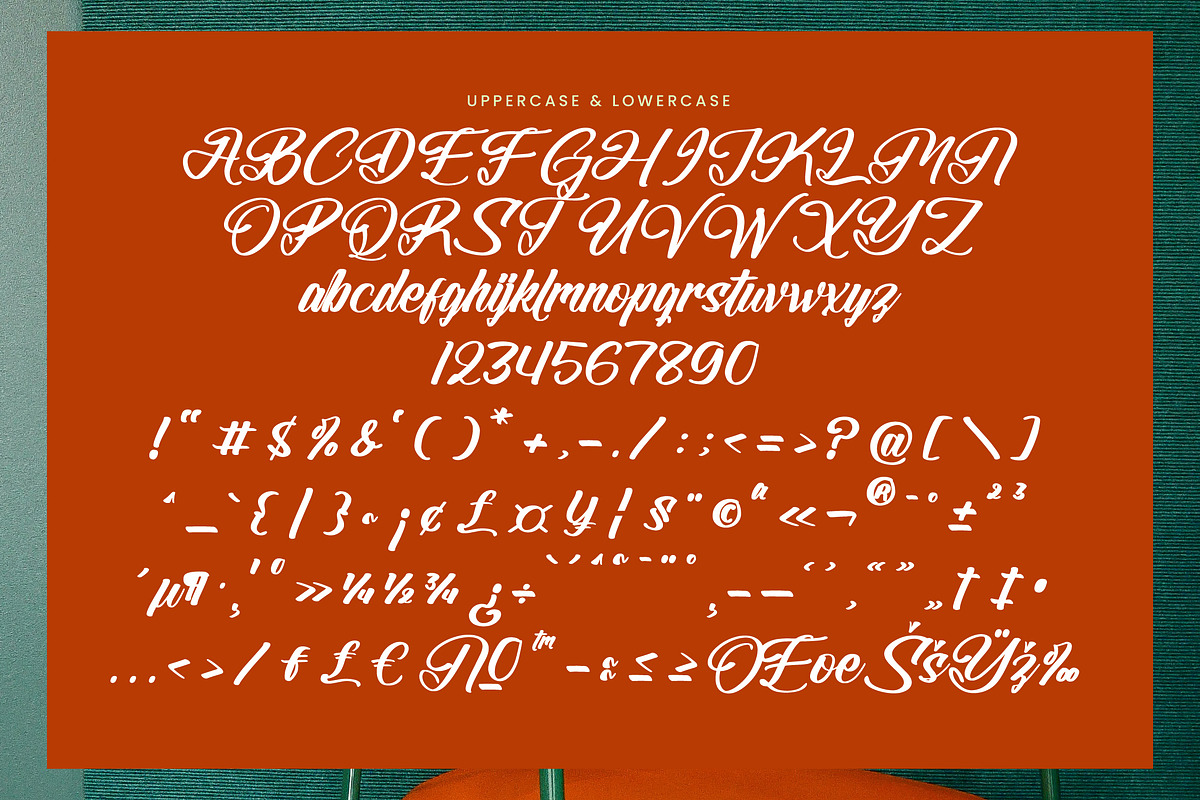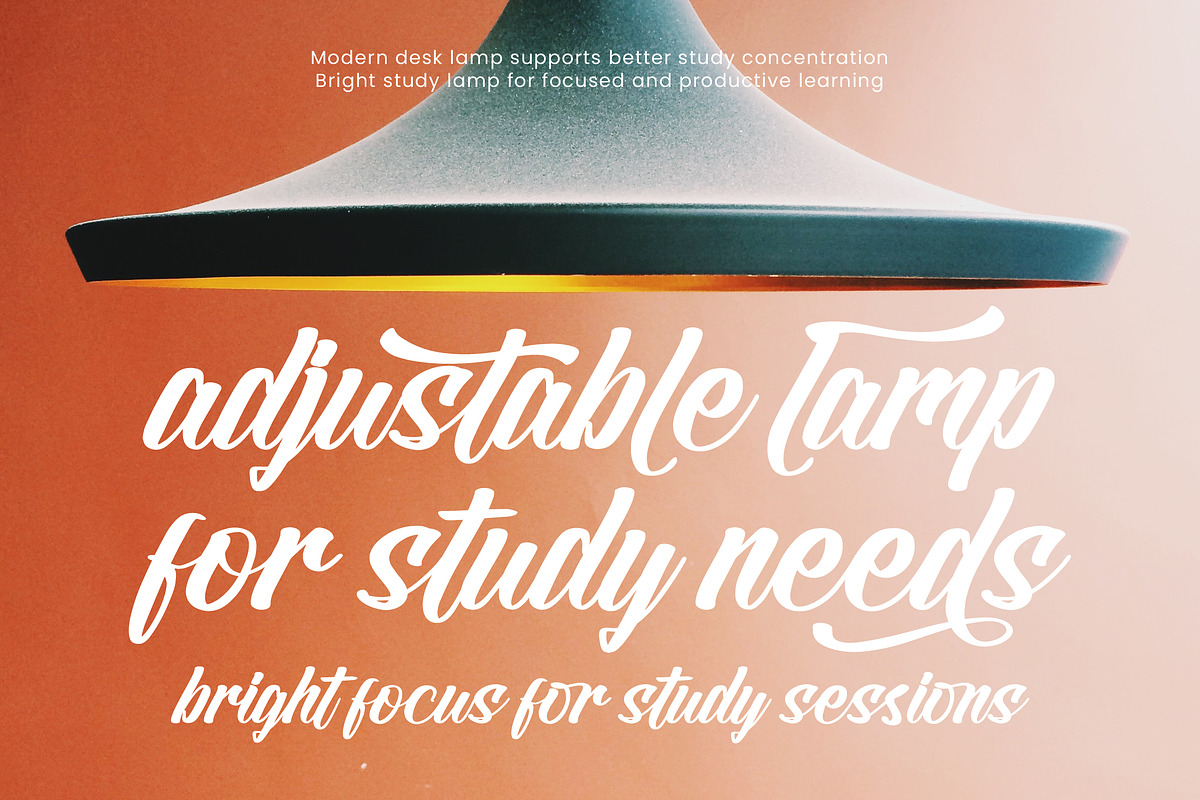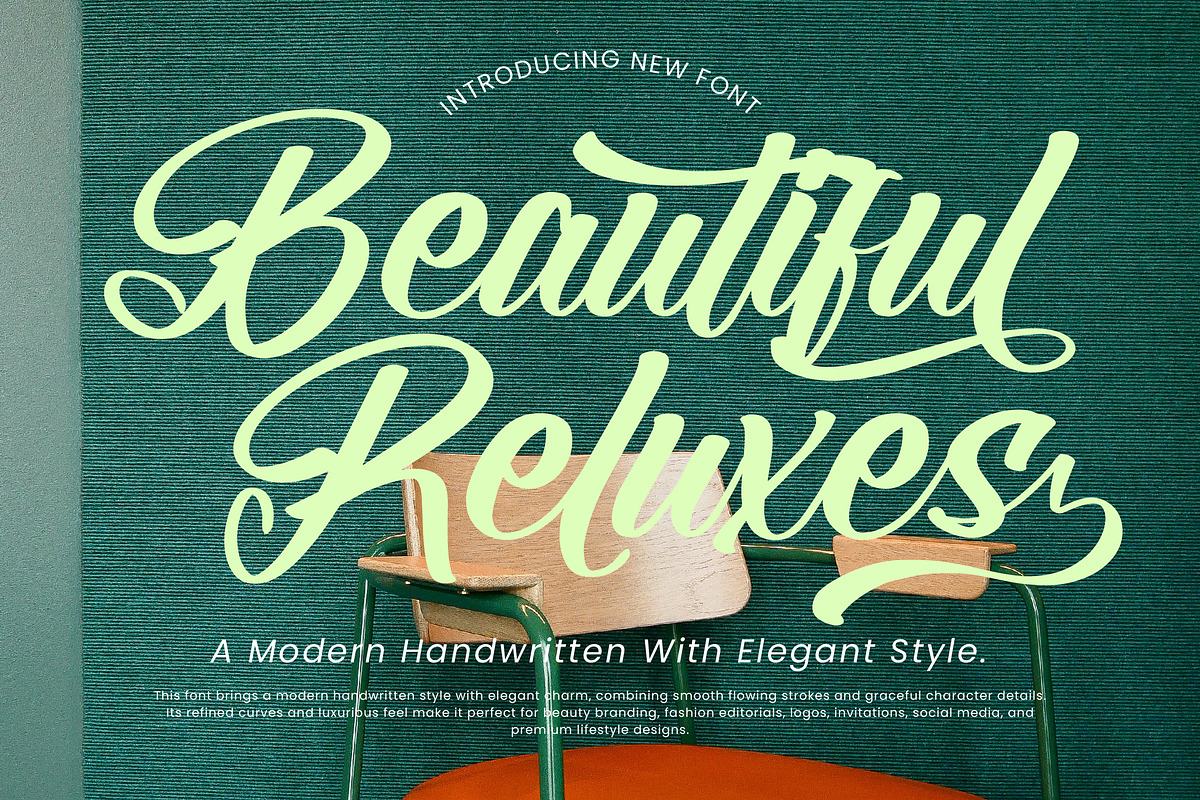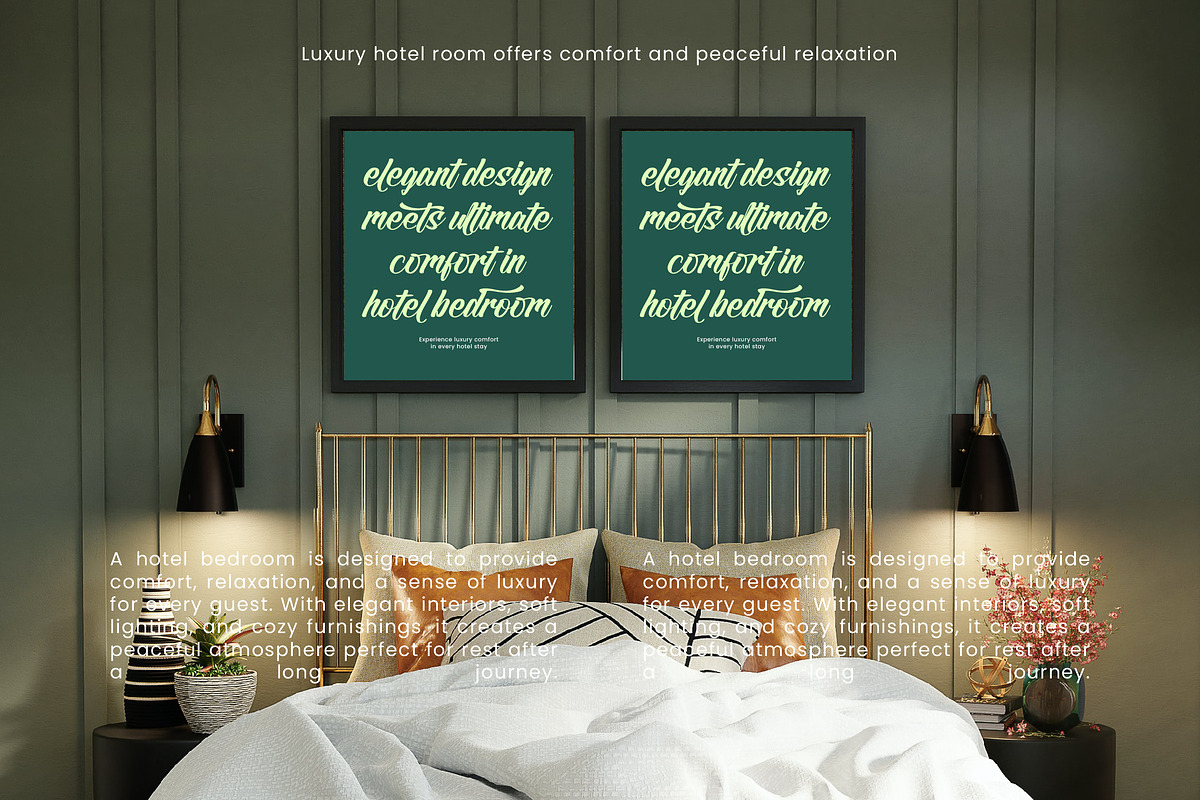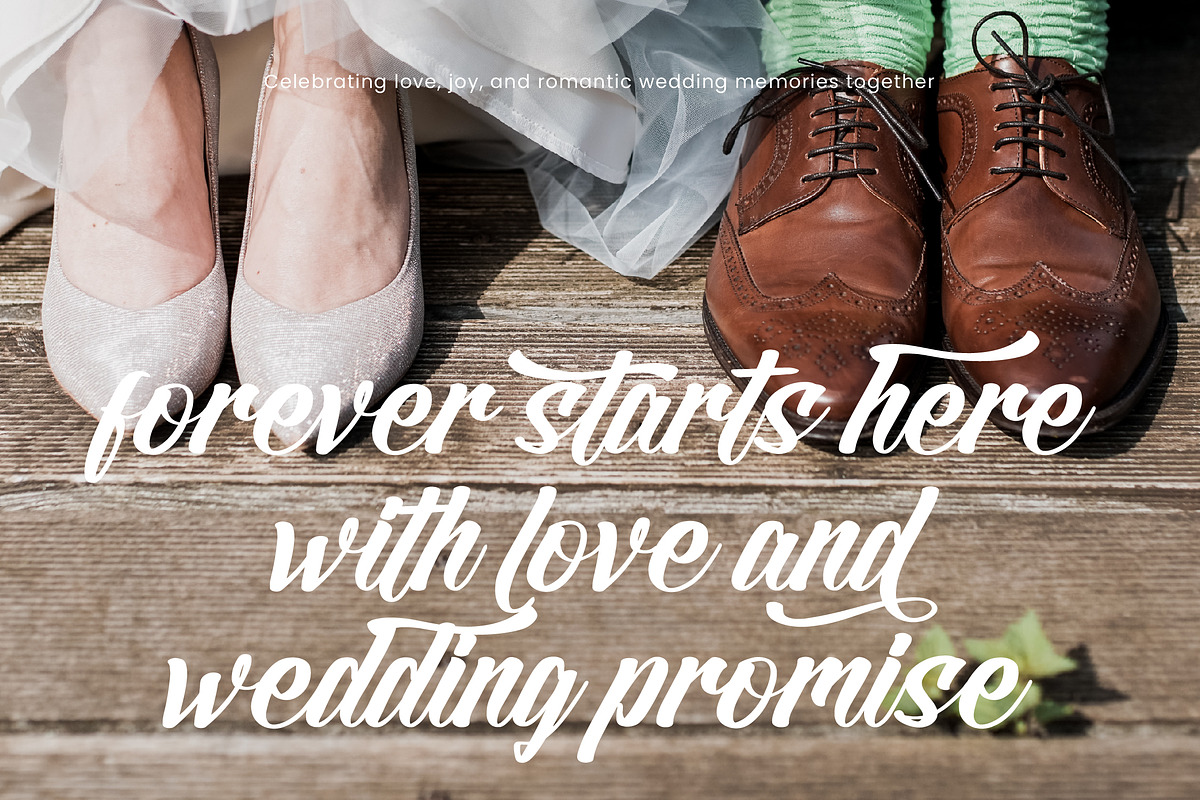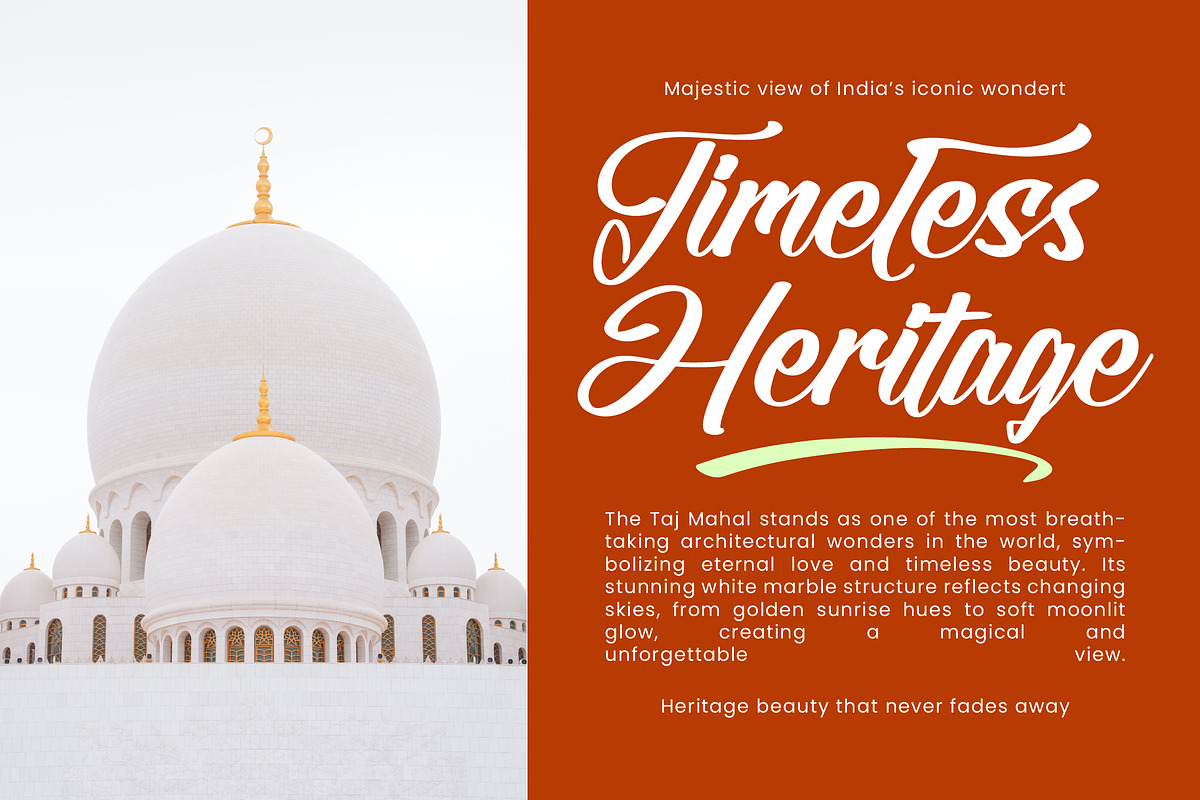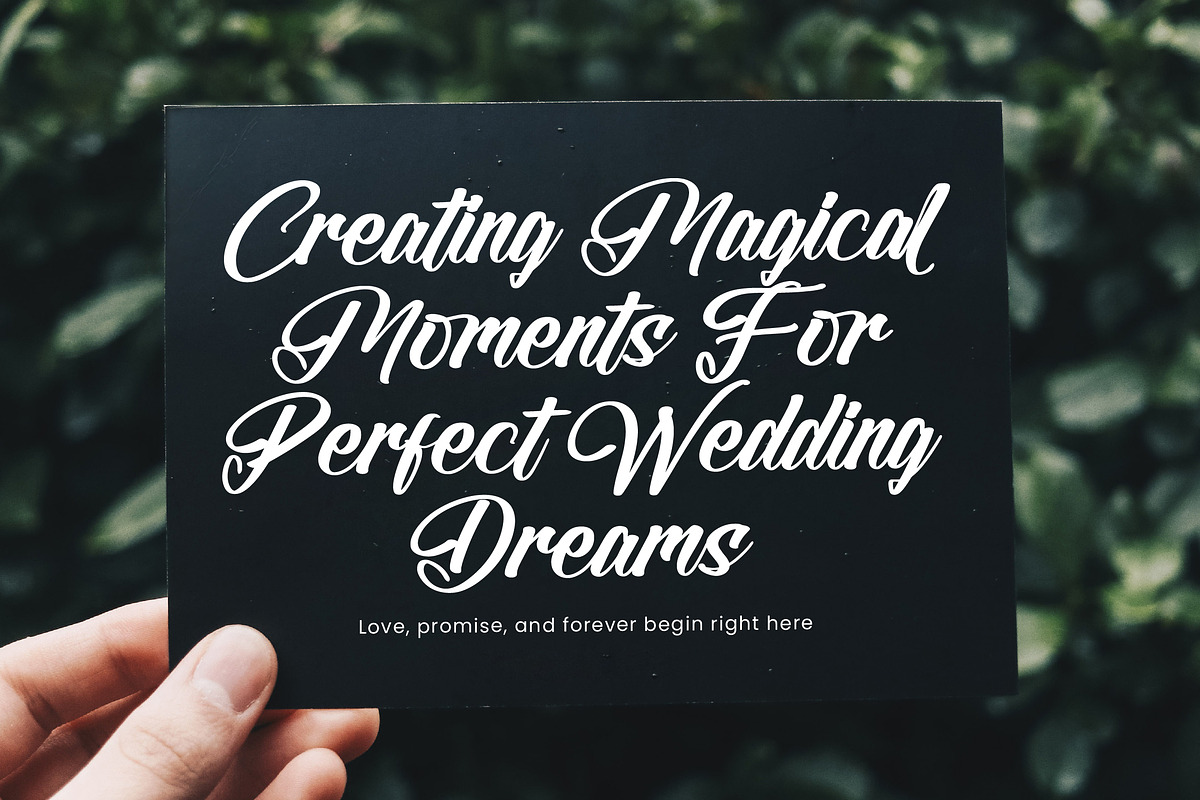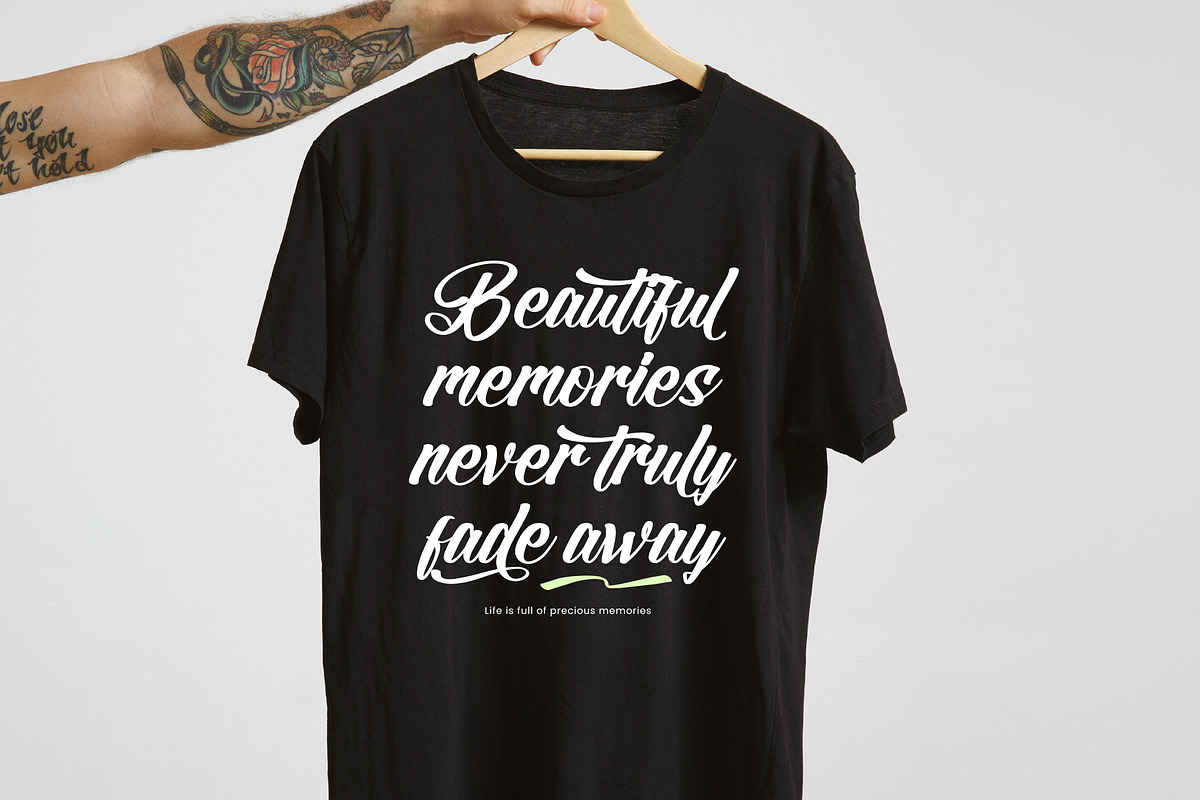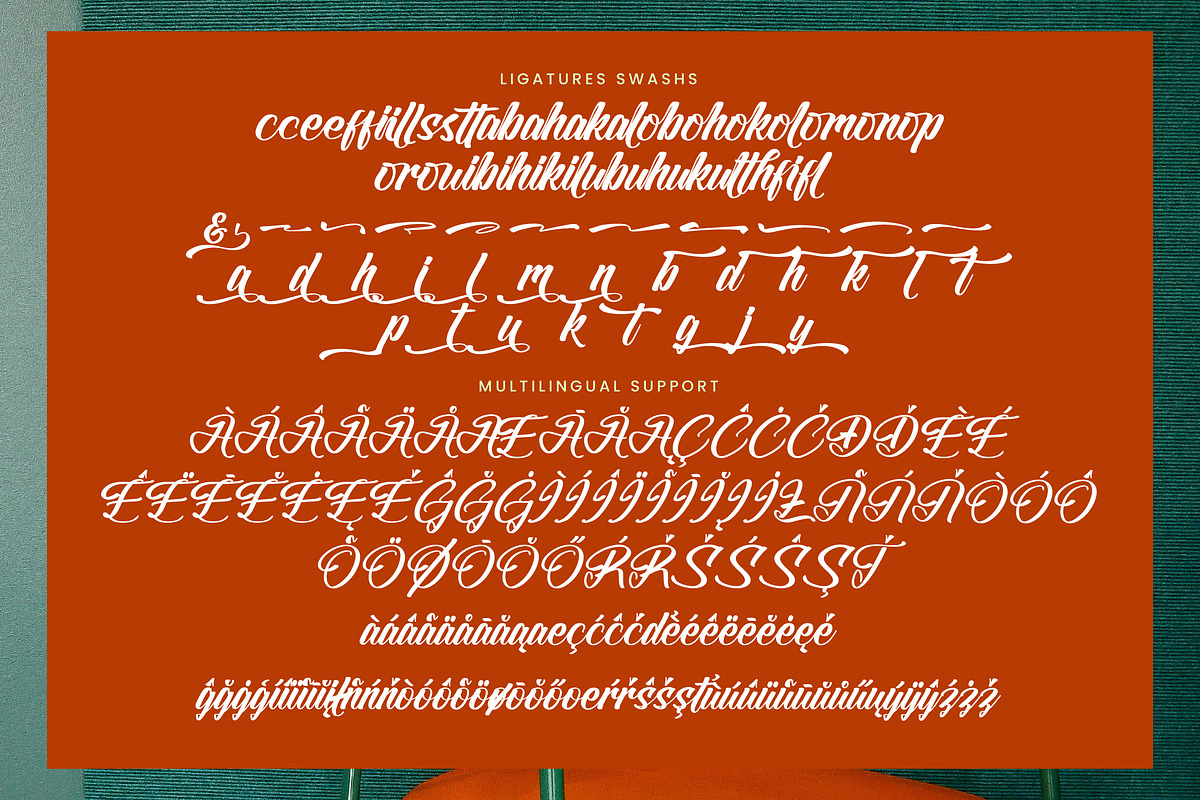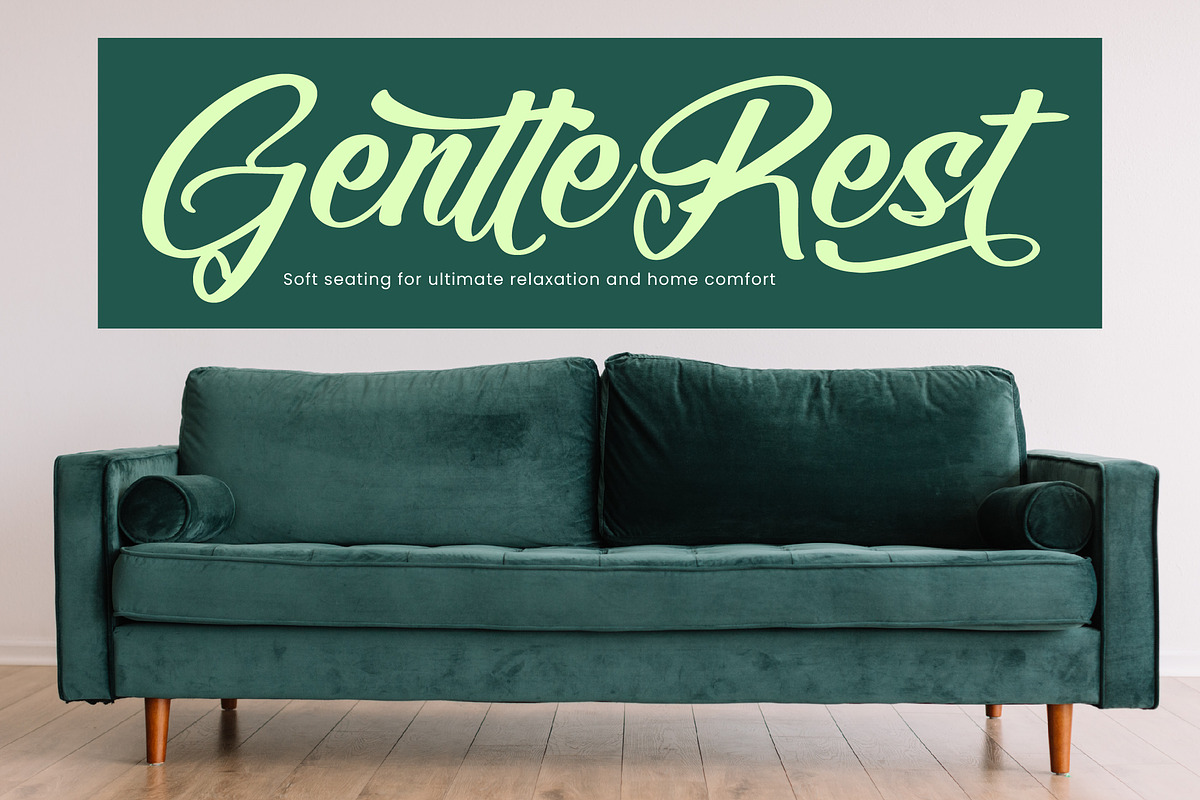
Beautiful Reluxes Modern Elegant
Beautiful Reluxes – A Modern Handwritten With Elegant Style
Beautiful Reluxes is a modern handwritten font designed with graceful curves and elegant flowing strokes. Its refined and stylish appearance creates a luxurious handwritten feel that looks sophisticated and timeless.
Perfect for wedding invitations, beauty branding, fashion editorials, logos, packaging, social media, and feminine design projects, Beautiful Reluxes adds elegance and charm to every layout.
This font blends modern aesthetics with natural handwriting, making it ideal for creating classy and premium visual identities.
Elegant Handwritten Style